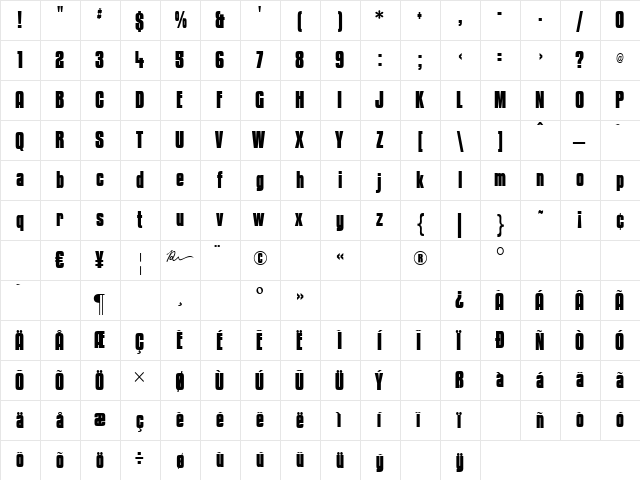
Kenyan Coffee Bold
Design Context for Kenyan Coffee Typeface
Kenyan Coffee takes a measured approach to typography — its balanced proportions and neutral character make it a reliable workhorse for both digital and print work. Its bold stroke weight gives it real presence on the page.